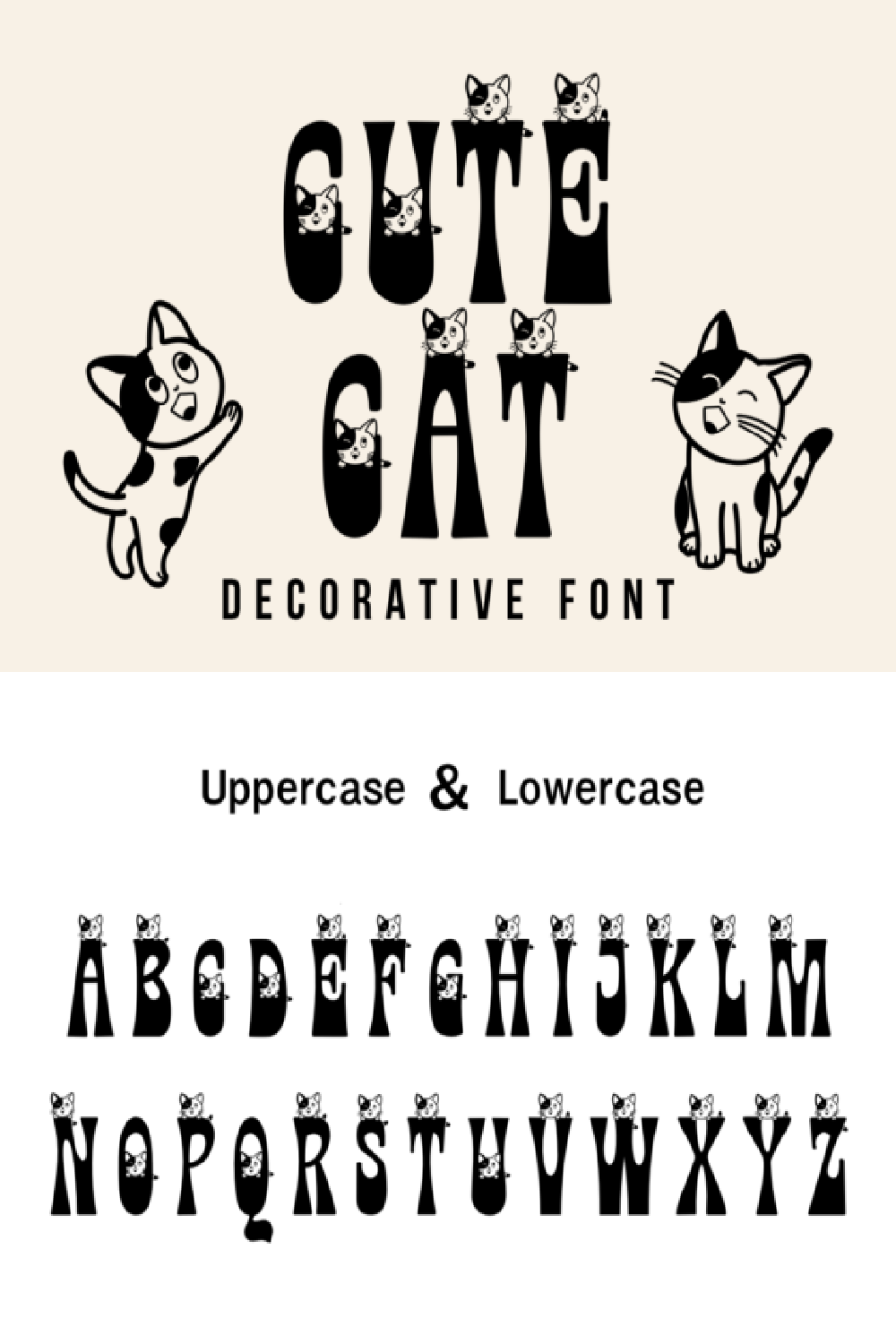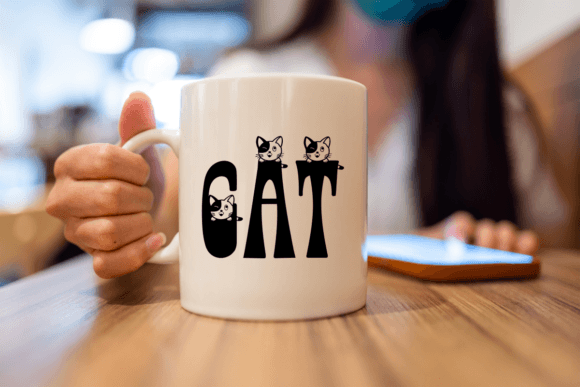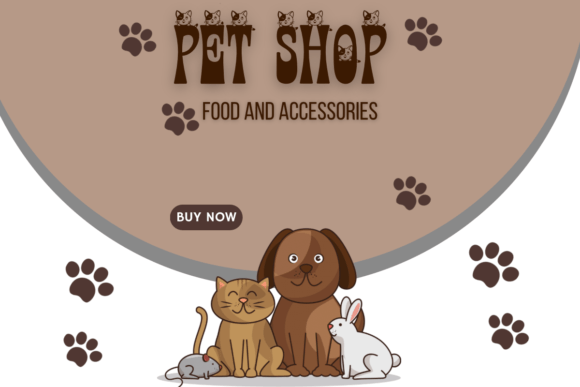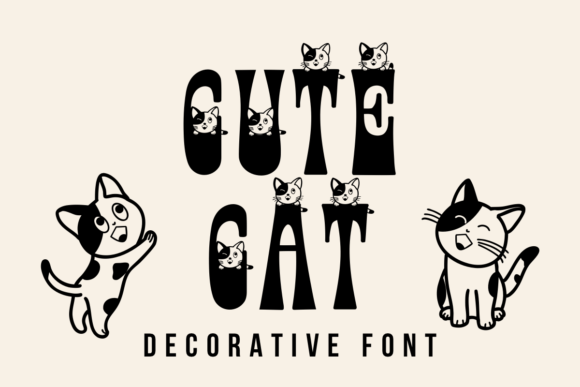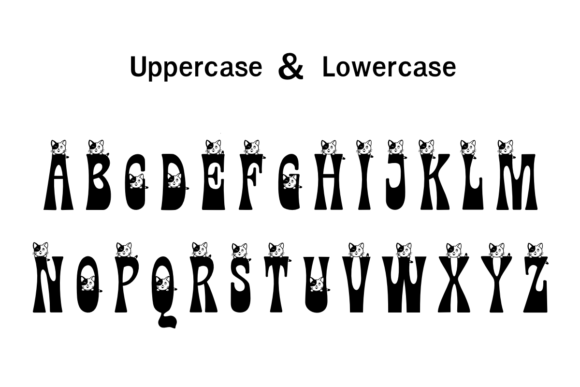
Cute Cat Font: Feline Bold – Playful Typography for Cricut & DIY
About the Cute Cat Font
From logos to headlines, the Cute Cat Font is the perfect choice for making a lasting impression. Cute Cat is a decorative font with a feline element. You can use it for taking notes, writing a diary, or making greeting cards. However, you can still use it for other designs, such as banners, content, mugs, cards, shirts, stationery, social media posts, and more!
Cute Cat’s playful, rounded forms make it ideal for projects requiring a friendly and approachable aesthetic. It excels in headlines, short text blocks on packaging, and social media graphics where its decorative elements add visual interest. However, its decorative nature makes it unsuitable for body text or UI elements where readability is paramount. Avoid using it for long paragraphs or situations demanding high legibility.
Pairing Cute Cat with a clean sans-serif like Open Sans for body copy creates a balanced design. For a more sophisticated look, consider pairing it with a classic serif font such as Garamond or a slightly more modern serif like Lora. These pairings offer a contrast that highlights Cute Cat’s unique charm without overwhelming the design.
Its overall personality is undeniably cheerful and lighthearted, making it perfect for brands targeting a younger demographic or projects with a whimsical, fun tone.